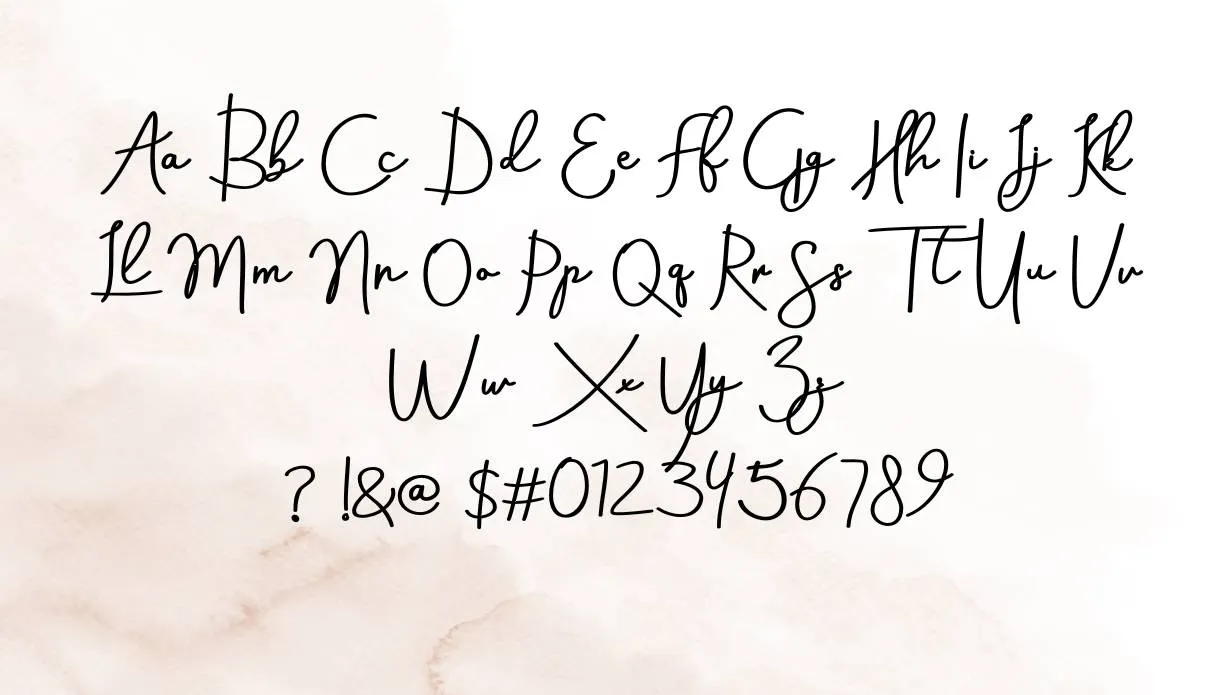
Aneisha Font embodies a classic and elegant style, making it perfect for formal invitations, vintage branding, and editorial headings. It commonly supports file formats like TTF and OTF, ensuring compatibility across various design applications.
This font’s timeless and refined appearance adds a touch of sophistication and grace to any design, making it an excellent choice for projects that demand an air of elegance. Aneisha Font carries a timeless appeal, perfect for adding a touch of sophistication and vintage charm to any layout.